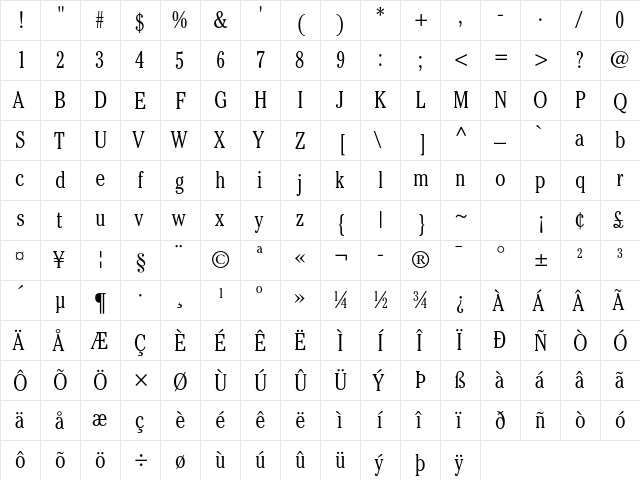
ITC Cheltenham Std Light Condensed
| Designer | Tony Stan |
Design Context for ITC Cheltenham Std Typeface
ITC Cheltenham Std offers clean, dependable letterforms without strong stylistic allegiance, making it a practical choice for designers who need flexibility. The delicate stroke weight brings airiness and refinement to layouts. Its narrow stance lets it pack a punch even in space-constrained designs.